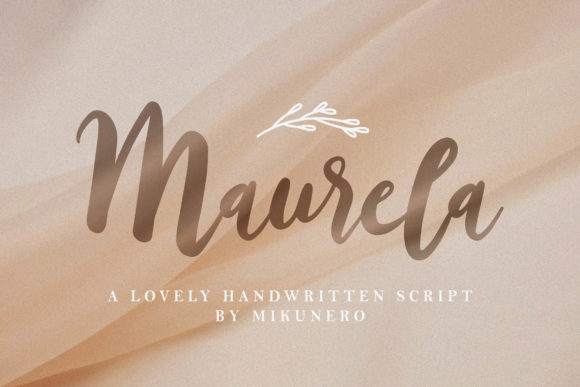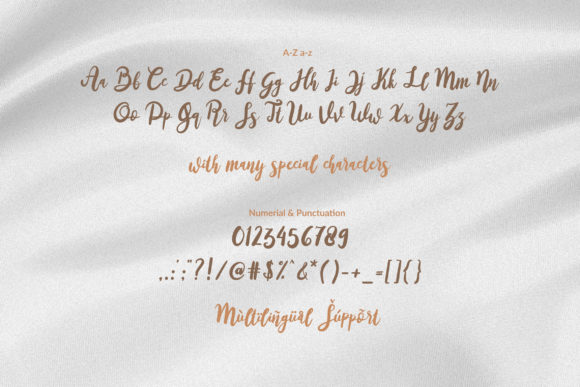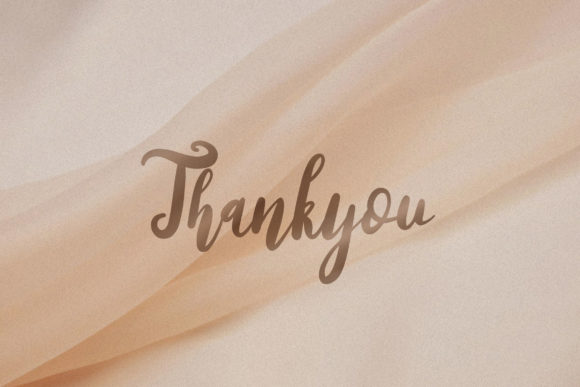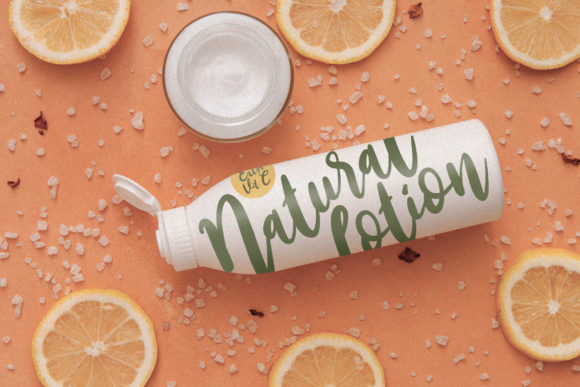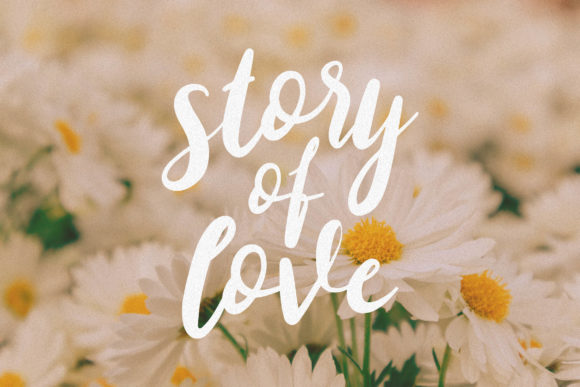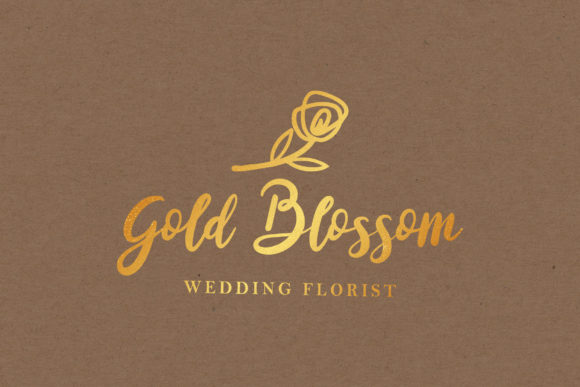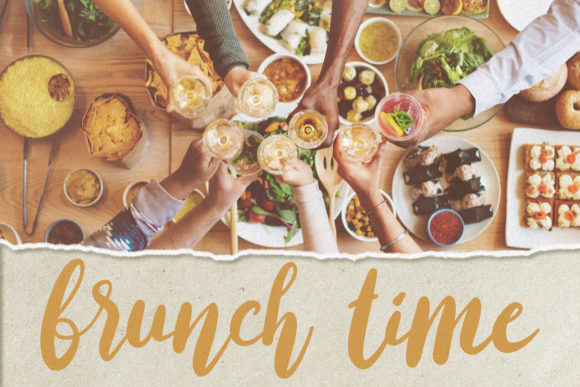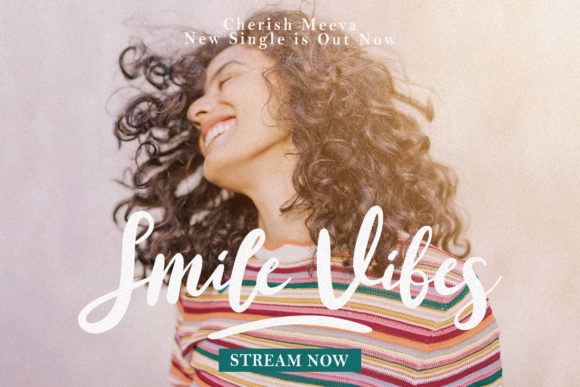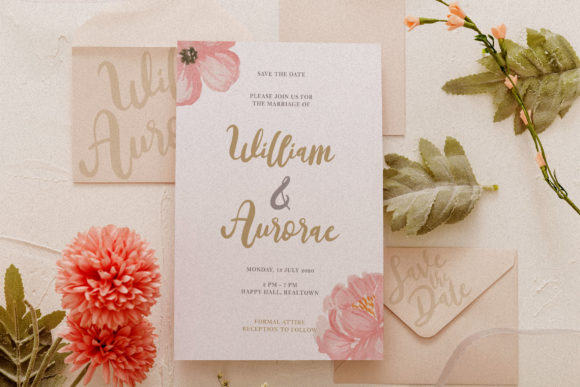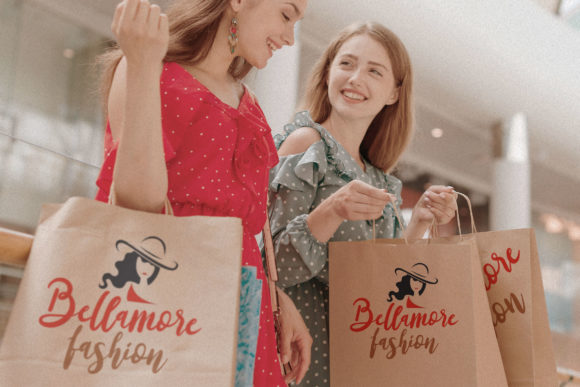
Maurela Font
About Maurela Font
Maurela is an elegant and flowing handwritten font. It is PUA encoded which means you can access all of the glyphs and swashes with ease! It features a varying baseline, smooth lines, gorgeous glyphs and stunning alternates. It maintains its classy calligraphic influences while feeling contemporary and fresh. Fall in love with this font and bring your projects to the highest levels!